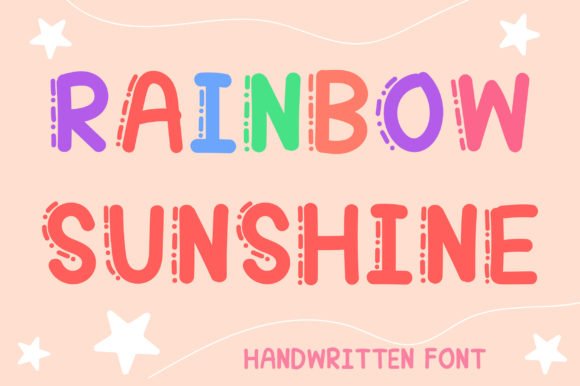
Immerse yourself in the world of Rainbow Sunshine, a captivating display font exuding cheerfulness and vibrancy. This font is a masterpiece crafted by PearlyDaisy, a renowned font artist, who has poured their heart and soul into creating a font that dances with joy and radiates positivity.
Rainbow Sunshine is not just a font; it's an expression of creativity, a burst of color, and a breath of fresh air in the realm of typography. With its playful and energetic style, it's the perfect choice for adding a touch of whimsy and charm to your designs.
Visualize the impact of Rainbow Sunshine on your logos, quotes, blogs, crafting projects, invitation cards, and social media posts. It's like sprinkling a rainbow of happiness onto your creations, leaving an indelible mark on whoever encounters them.
With Rainbow Sunshine, you'll embark on a creative journey where your ideas come alive with a vivacious spirit. It's a font that transforms the ordinary into the extraordinary, the mundane into the magnificent.
But Rainbow Sunshine isn't just about aesthetics; it's about functionality too. Its remarkable readability makes it an ideal choice for web browsing, ensuring a seamless and enjoyable user experience. Whether you're exploring the depths of the internet or engaging with your favorite online content, Rainbow Sunshine will accompany you, making every click and scroll a delightful experience.
So, embrace the radiant energy of Rainbow Sunshine and let your creative spirit soar. Let this font infuse your designs with joy, spark imagination, and leave a lasting impression on the world.